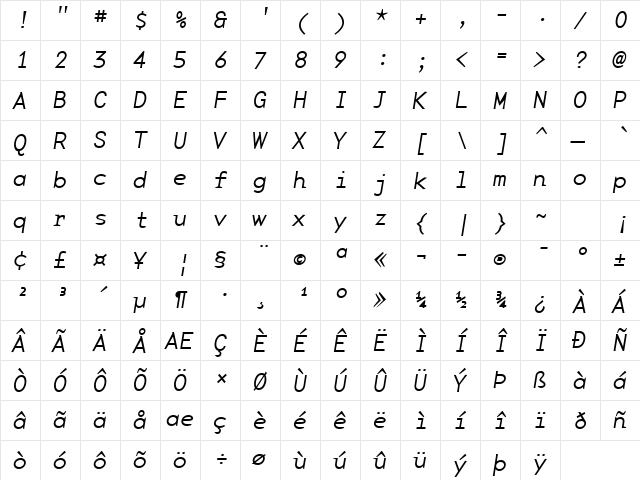
BaseMonoWideThinItalic Italic Font Preview
Design Context for BaseMonoWideThinItalic Typeface
BaseMonoWideThinItalic brings the precise, column-aligned rhythm of monospaced typography to designs that value technical clarity and systematic order. The dynamic lean of this cut emphasises speed and emphasis in any layout. Its slender proportions lend an understated elegance to any composition.
Well-suited to data-driven dashboards, coding tutorials, and any design that wants to reference the world of programming.